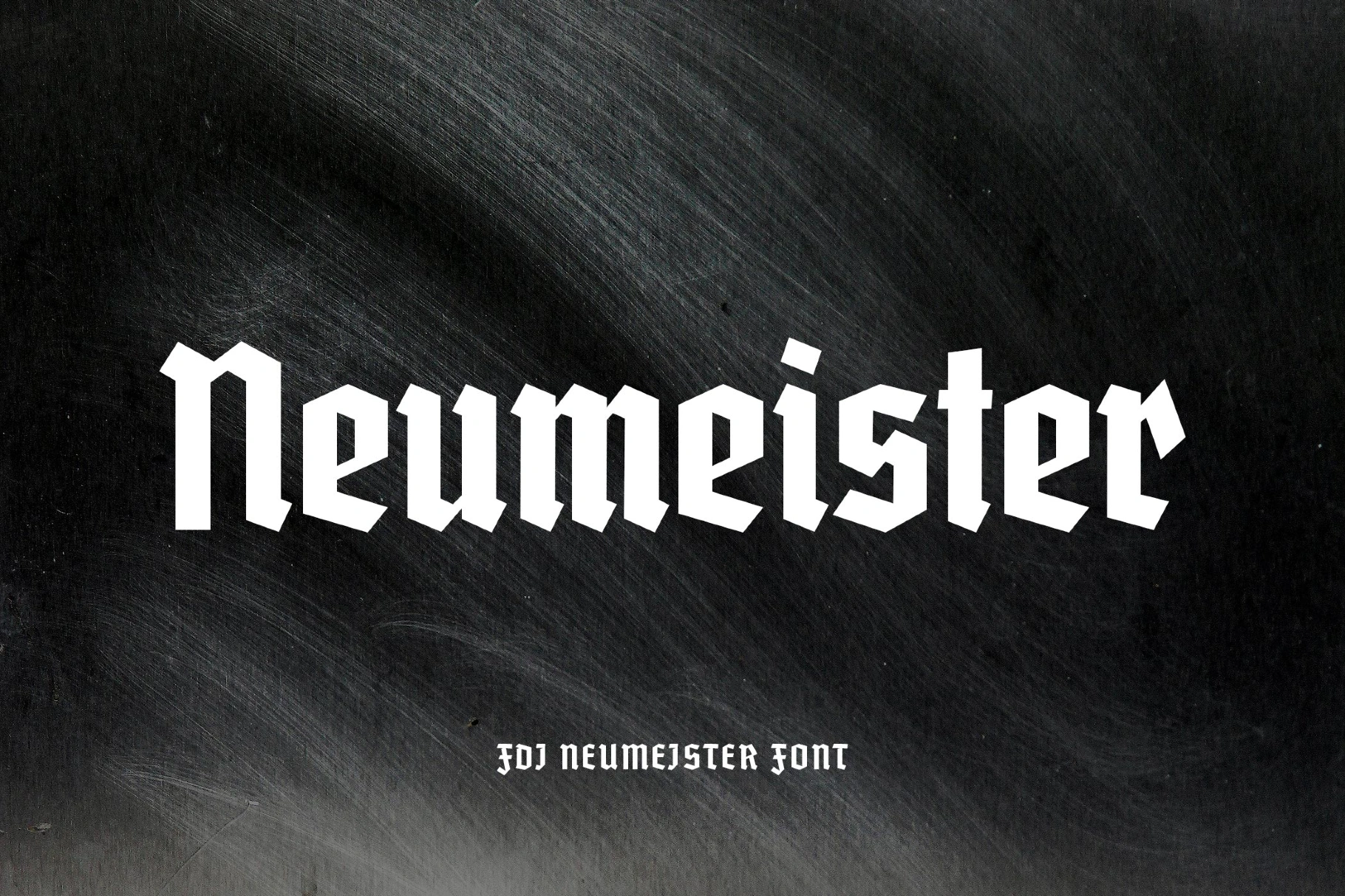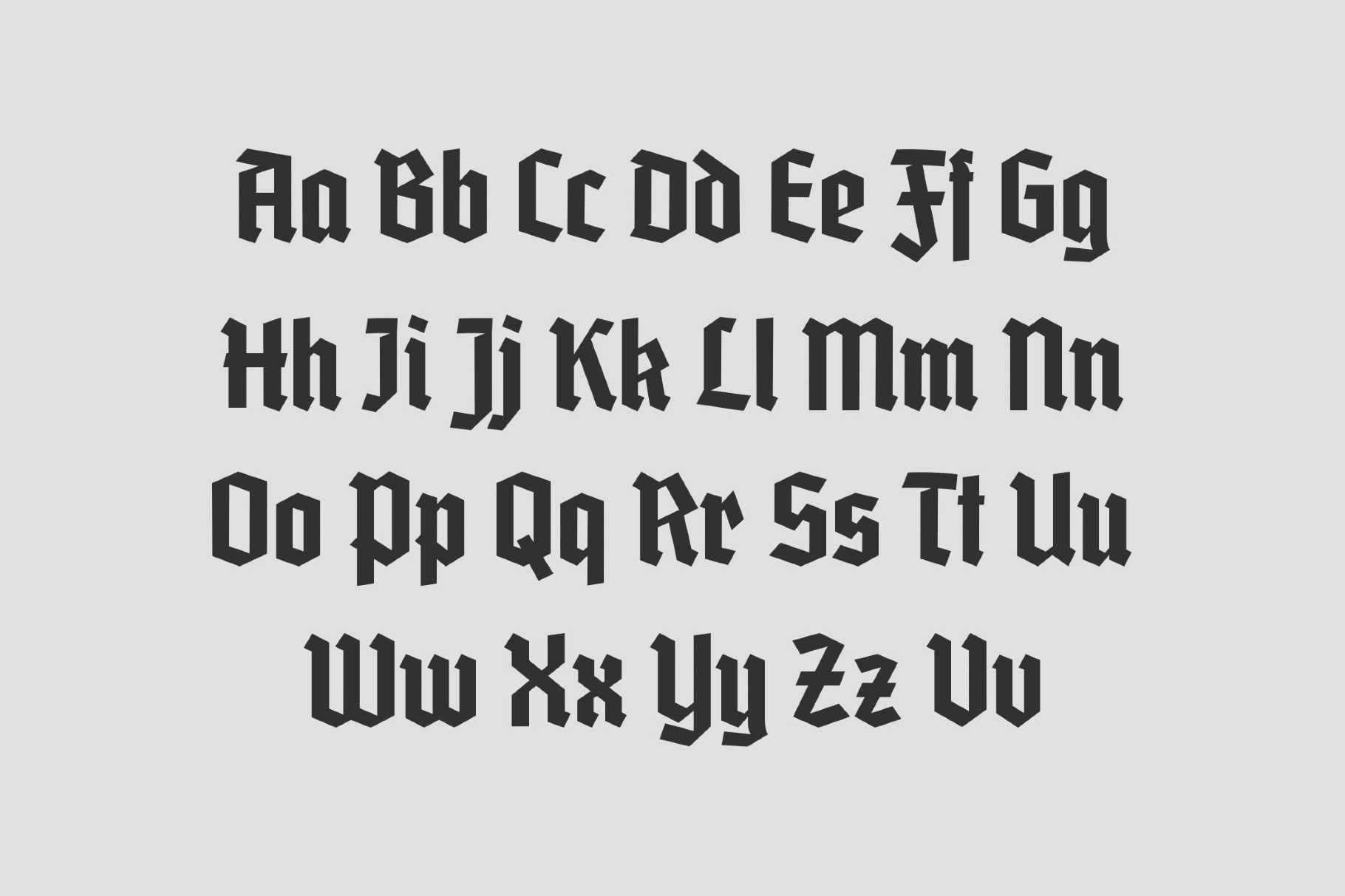
FDI Neumeister Font
This blackletter conveys a robust, poster-born cadence with faceted stems and blocky wedges. It stays highly readable: broad verticals, high x-height, and open counters do their job, while clipped diagonals add alpine (or even Swiss-legacy) edge.
It works smoothly for travel and ski posters, heritage tourism campaigns, brewery and distillery labels, extreme-sports branding, concert and festival titles, museum exhibitions, editorial mastheads, streetwear tags, signage for mountain lodges, and game UI menus.